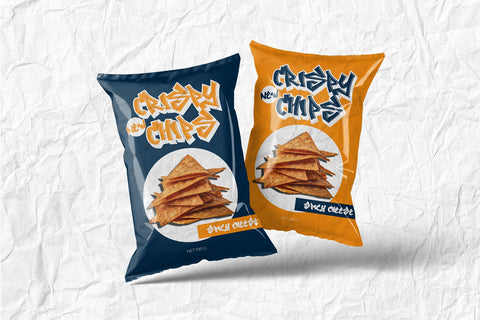
Jack and Zeky - Minimalist Graffiti font
"Jack and Zeky" is a graffiti font characterized by sharp corners in its letterforms. Fonts with sharp corners often convey a sense of edginess and modernity, making them ideal for projects that require a bold and contemporary typographic style.
- Graffiti Characters looks